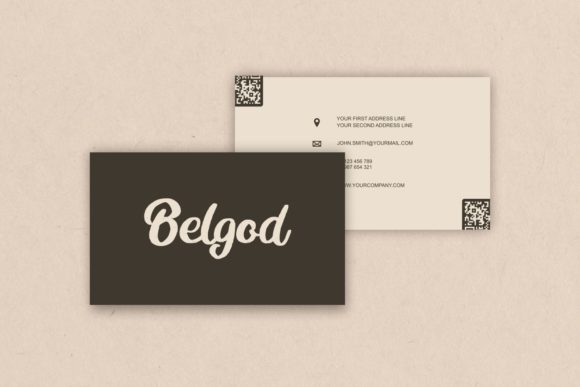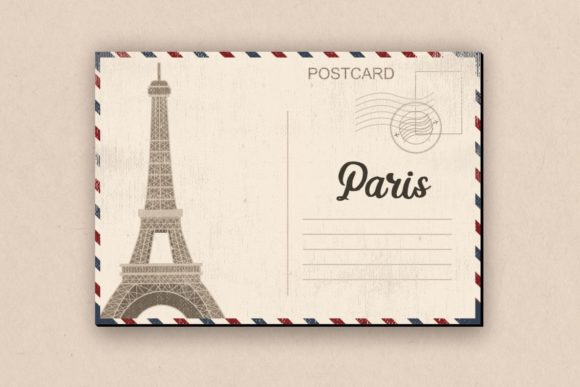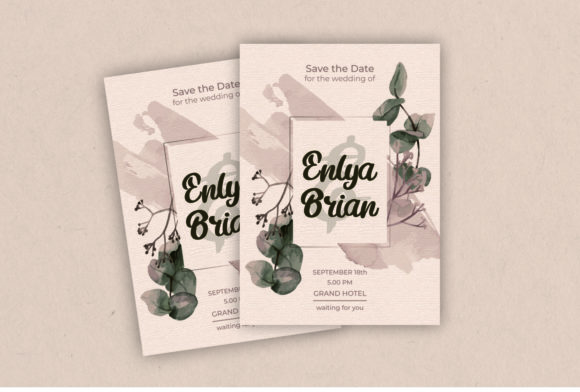
Introduction to Mugle Font
Remember the moment when you stumbled upon the perfect font for your creative project? The one that elevated your design from ordinary to extraordinary? For many designers, that moment is a treasure to behold. Today, we’re excited to introduce you to the Mugle Font, a stunning calligraphy script font that’s sure to make your designs stand out.
The Mugle Font is a versatile design resource that’s perfect for a wide range of applications, from greeting cards and quotes to posters and social media posts. With its high-quality design and transparent background, this font is a valuable addition to any designer’s toolkit. Whether you’re working on a free download or a paid project, the Mugle Font is sure to bring a touch of elegance and sophistication to your work.
Key Features of Mugle Font
- High-quality font design with a unique, creative style, perfect for design projects.
- Features a transparent background, allowing for seamless integration into any design resource.
- Supports a range of languages, making it a versatile design element for creative projects.
Honest Review: Mugle Font
I recently stumbled upon the Mugle Font and was impressed with its unique design. This free download has been a valuable addition to my design resource collection.
- High-quality design with smooth lines and a clear, legible font style ✨
- Transparent background makes it easy to use in various creative projects
- Only available in a single weight, which may limit its versatility ⚠️
Overall, I’m pleased with the Mugle Font and would recommend it for personal or small-scale creative projects. Its unique design and high-quality appearance make it a valuable design resource. However, be aware of its limitations before using it in your next project.
Tips for Getting the Most Out of Mugle Font
To get the most out of Mugle Font, experiment with different font sizes, colors, and styles to find the perfect combination that suits your design needs.
Mugle Font is ideal for creating invitations, posters, business cards, and other design materials that require a touch of sophistication and elegance. Its transparent background makes it perfect for overlaying on images or backgrounds, adding an extra layer of depth to your designs.